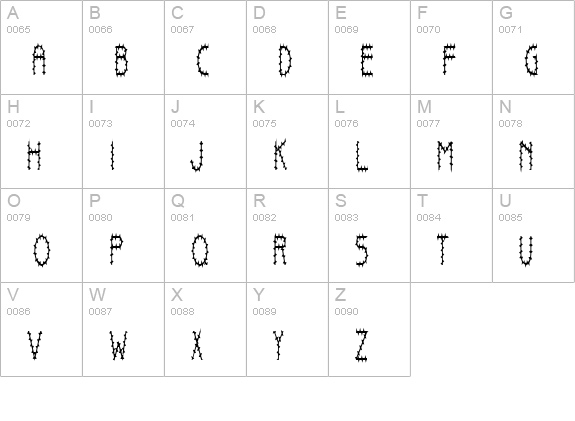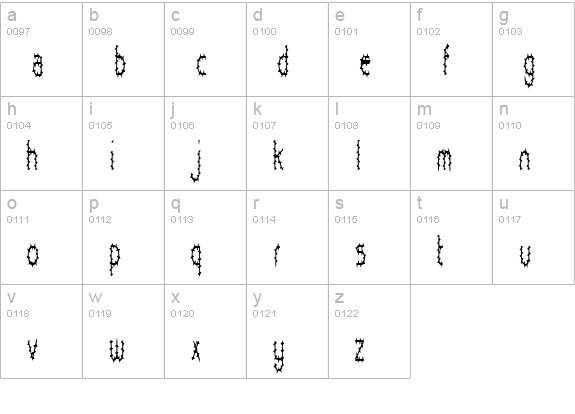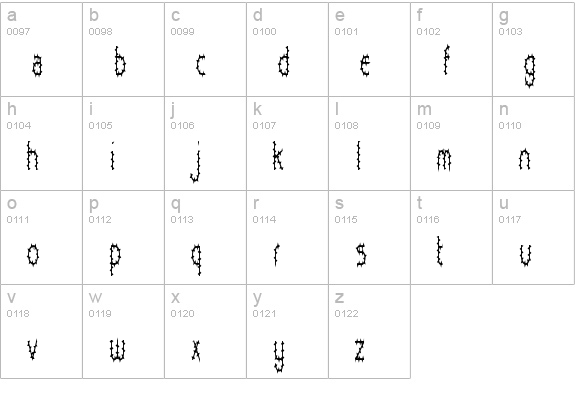
BlueDragon Font Details
BlueDragon font is a versatile typeface that combines elegance with a touch of whimsy. With its bold strokes and unique letterforms, BlueDragon is perfect for a variety of design projects, from logos to posters to invitations. This font exudes a sense of creativity and sophistication, making it a great choice for anyone looking to make a statement with their typography. The best part? BlueDragon font is completely free to download at FontsMarket.com. This means you can add this stylish font to your collection without breaking the bank. So why wait? Elevate your designs with BlueDragon font today!